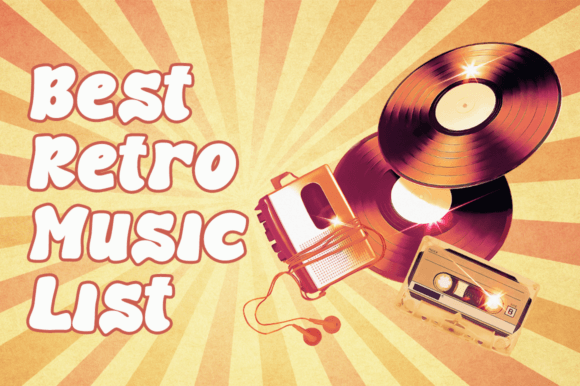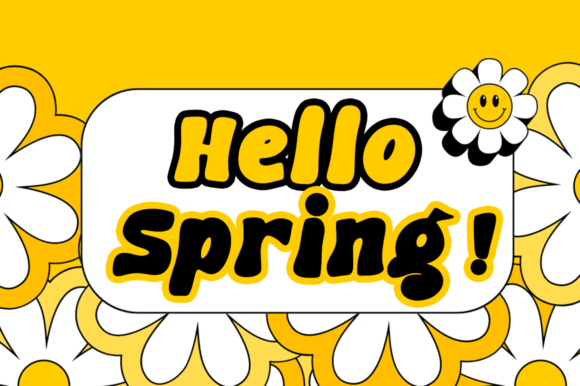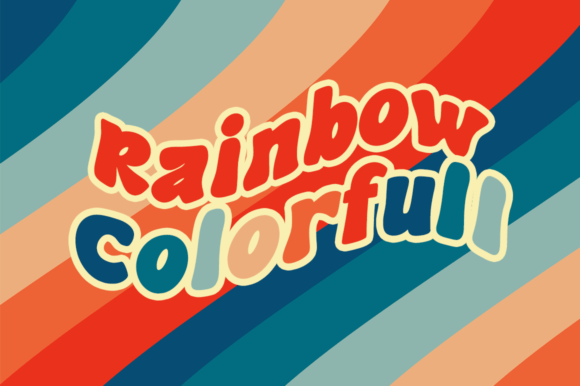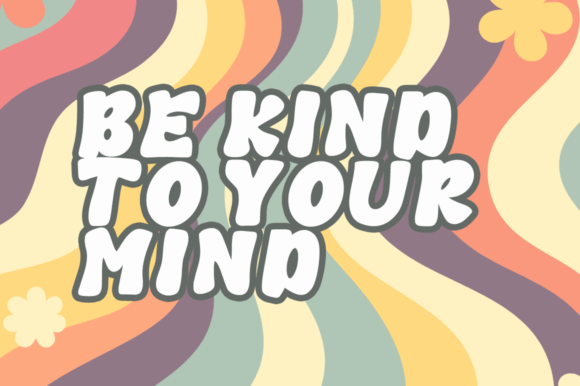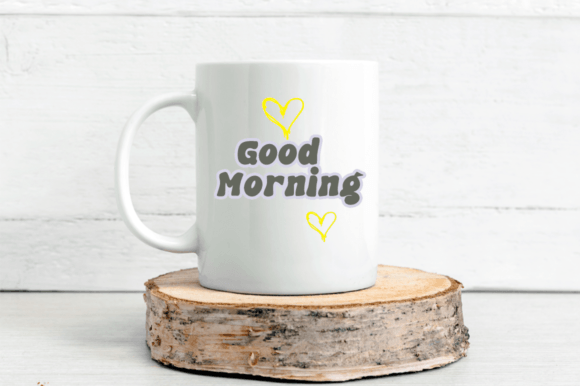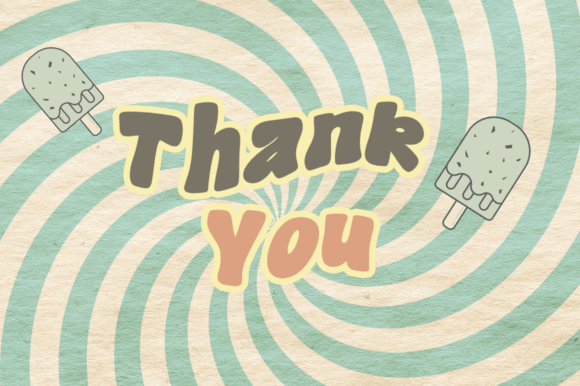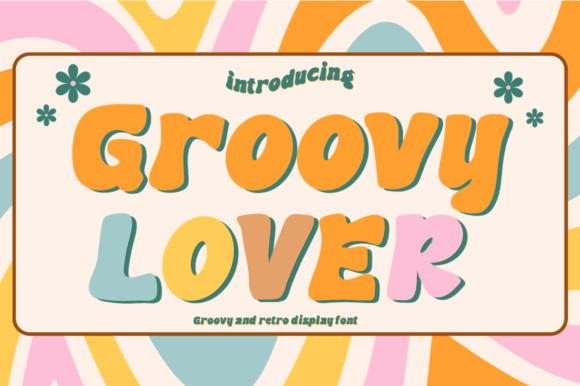
Groovy Lover Font: Elevate Your Designs with a Nostalgic Twist
Are you a designer or crafter looking for a font that can add a touch of retro charm to your creative projects? Look no further than the Groovy Lover Font, a dynamic and nostalgic display font that effortlessly blends casual elegance with vintage vibes. In this article, we’ll dive into the world of Groovy Lover, exploring its features, benefits, and uses, and show you how this versatile font can take your designs to the next level.
What is Groovy Lover Font?
Groovy Lover Font is a carefully crafted display font that combines the best of both worlds – casual elegance and retro charm. Its unique design makes it perfect for a wide range of creative ventures, from logos and product packaging to wedding invitations, branding, headlines, and signage. With Groovy Lover, you can add a distinct personality to your designs, making them stand out from the crowd.
Key Features of Groovy Lover Font
- Dynamic and Nostalgic Design: Groovy Lover Font boasts a dynamic and nostalgic design that is sure to capture attention and evoke emotions.
- Casual Elegance: This font seamlessly blends casual elegance with retro vibes, making it perfect for designs that require a touch of sophistication.
- Versatility: Groovy Lover Font is incredibly versatile, making it suitable for a wide range of creative projects, from logos and branding to wedding invitations and signage.
- Easy to Read: Despite its unique design, Groovy Lover Font is easy to read, ensuring that your message is conveyed clearly and effectively.
Benefits of Using Groovy Lover Font
So, why should you choose Groovy Lover Font for your designs? Here are just a few benefits of using this amazing font:
- Unique and Memorable: Groovy Lover Font is sure to make your designs stand out from the crowd, leaving a lasting impression on your audience.
- Time-Saving: With Groovy Lover Font, you can create stunning designs in no time, thanks to its easy-to-use and versatile design.
- Customizable: This font is highly customizable, allowing you to adjust its size, color, and style to fit your design needs.
Use Cases for Groovy Lover Font
Groovy Lover Font is incredibly versatile, making it suitable for a wide range of creative projects. Here are some use cases to get you started:
- Logos and Branding: Add a touch of retro charm to your logo and branding, making your business stand out from the competition.
- Wedding Invitations: Create captivating wedding invitations that set the tone for a memorable and stylish celebration.
- Product Packaging: Lend a distinct charm to your product packaging, making your products stand out on store shelves.
- Headlines and Signage: Create bold headlines and eye-catching signage that grab attention and convey your message effectively.
Tips for Using Groovy Lover Font
To get the most out of Groovy Lover Font, here are some tips to keep in mind:
- Experiment with Colors: Try out different colors to find the perfect combination that matches your brand’s personality.
- Adjust Font Size: Experiment with different font sizes to create visual hierarchy and emphasize key messages.
- Pair with Other Fonts: Pair Groovy Lover Font with other fonts to create a unique and visually appealing design.
In conclusion, Groovy Lover Font is a dynamic and nostalgic display font that can elevate your designs to new heights. With its unique design, versatility, and ease of use, this font is perfect for designers and crafters looking to add a touch of retro charm to their creative projects. Whether you’re creating logos, branding, wedding invitations, or product packaging, Groovy Lover Font is sure to make your designs stand out from the crowd.